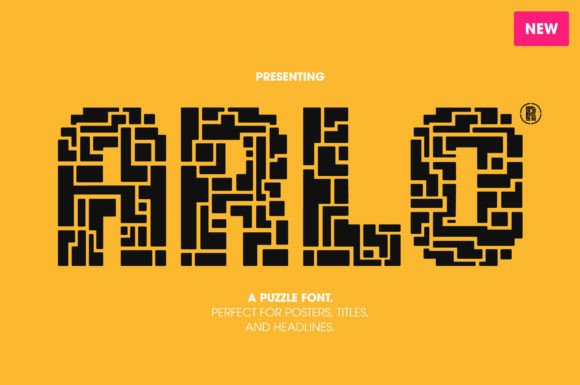
Behold Arlo, a font that dances off the page like a mesmerizing puzzle, a testament to HipFonts' unwavering commitment to creativity and style. With its captivating design, Arlo transcends the mundane, inviting you to embark on a visual odyssey where each letter unravels like a secret code. It's a font that captivates, entrances, and leaves an indelible mark on the hearts and minds of those who encounter it.
Arlo's intricate characters, a symphony of curves and angles, intertwine like vines on a trellis, creating a tapestry of visual delight. Each letter is a masterpiece in its own right, a microcosm of the imagination that inspired its creation. Whether you're designing striking posters that demand attention, logos that leave a lasting impression, or headlines that ignite curiosity, Arlo is your muse, your secret weapon in the quest for visual dominance.
Picture Arlo adorning your packaging, breathing life into your designs, transforming mundane products into objects of desire. Imagine your apparel, infused with Arlo's charm, captivating eyes and igniting conversations wherever you go. Arlo is your gateway to limitless creativity, a font that breaks the chains of convention and empowers you to express yourself with audacious originality.
So, let Arlo be your guide, your artistic companion on this adventure of visual expression. Allow its enigmatic charm to elevate your designs to new heights, to captivate audiences, and to leave an imprint on the world that is uniquely yours. Embrace Arlo, and unlock the boundless possibilities that await you in the realm of creativity.